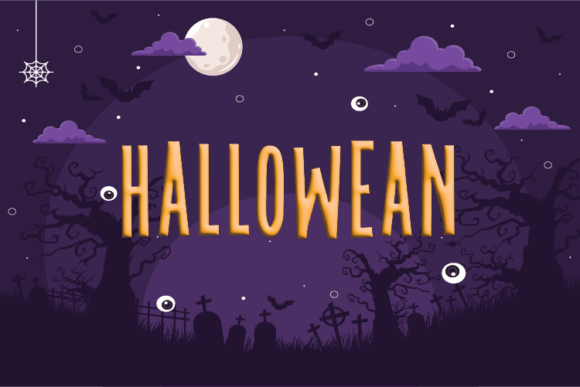
Prepare to be spooked by the spellbinding charm of Hallowean, a display font that will cast a wickedly stylish spell on all your creative endeavors. Indulge in its haunting beauty as you craft designs that are sure to raise the dead!
Hallowean is not your average font; it's a captivating masterpiece that will make your words dance with a spooky elegance. Let your imagination take flight and conjure up spine-tingling posters, hauntingly beautiful invitations, and social media posts that will send shivers of delight down your followers' spines.
This font is the perfect potion for adding a touch of the supernatural to your designs. Its versatility will enchant you, allowing you to effortlessly create everything from enchanting logos to spine-chilling book covers. With Hallowean, the possibilities are endless, just like the haunted nights of old.
So, if you're ready to unleash your inner ghoul and create designs that will make your audience scream with delight, then you need Hallowean in your design toolbox. Let this wickedly charming font cast its spell on you and watch as your creativity takes on a whole new level of spooktacular!